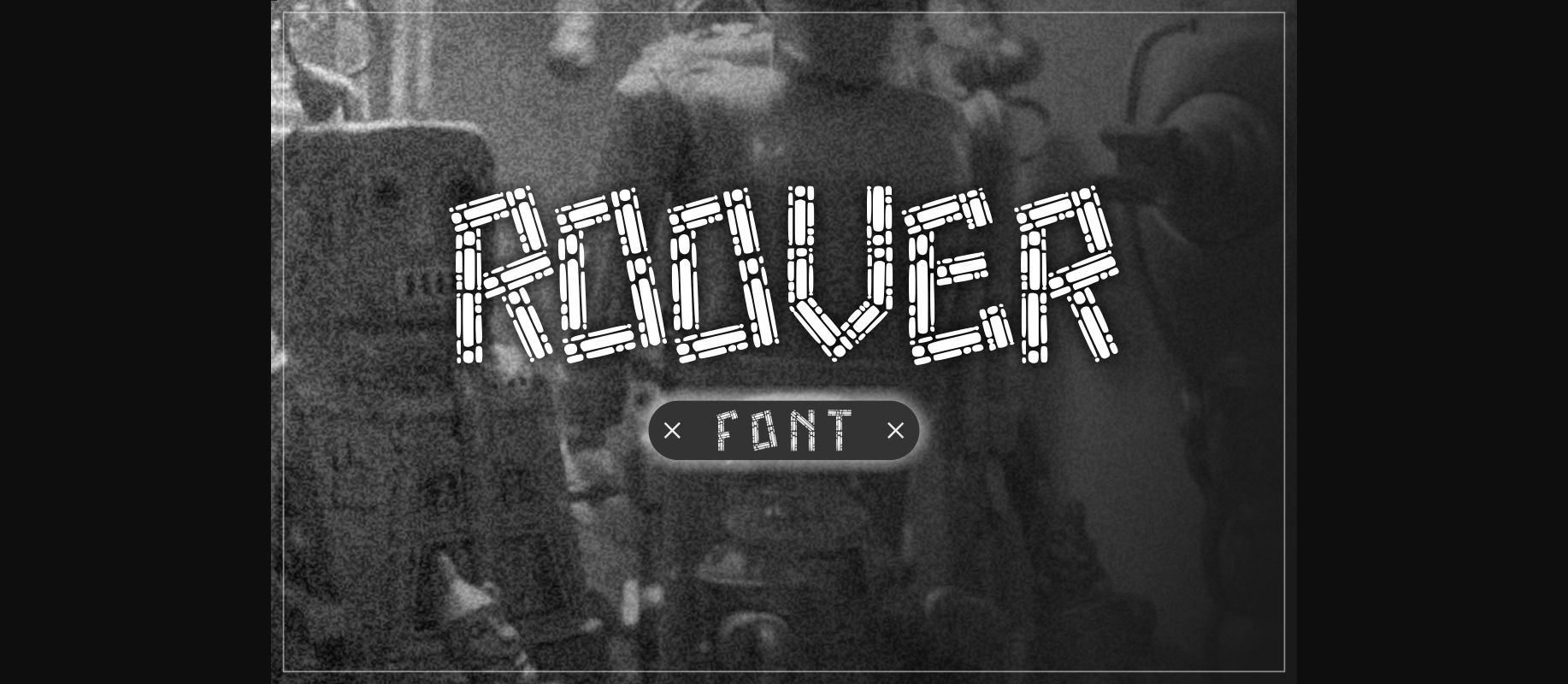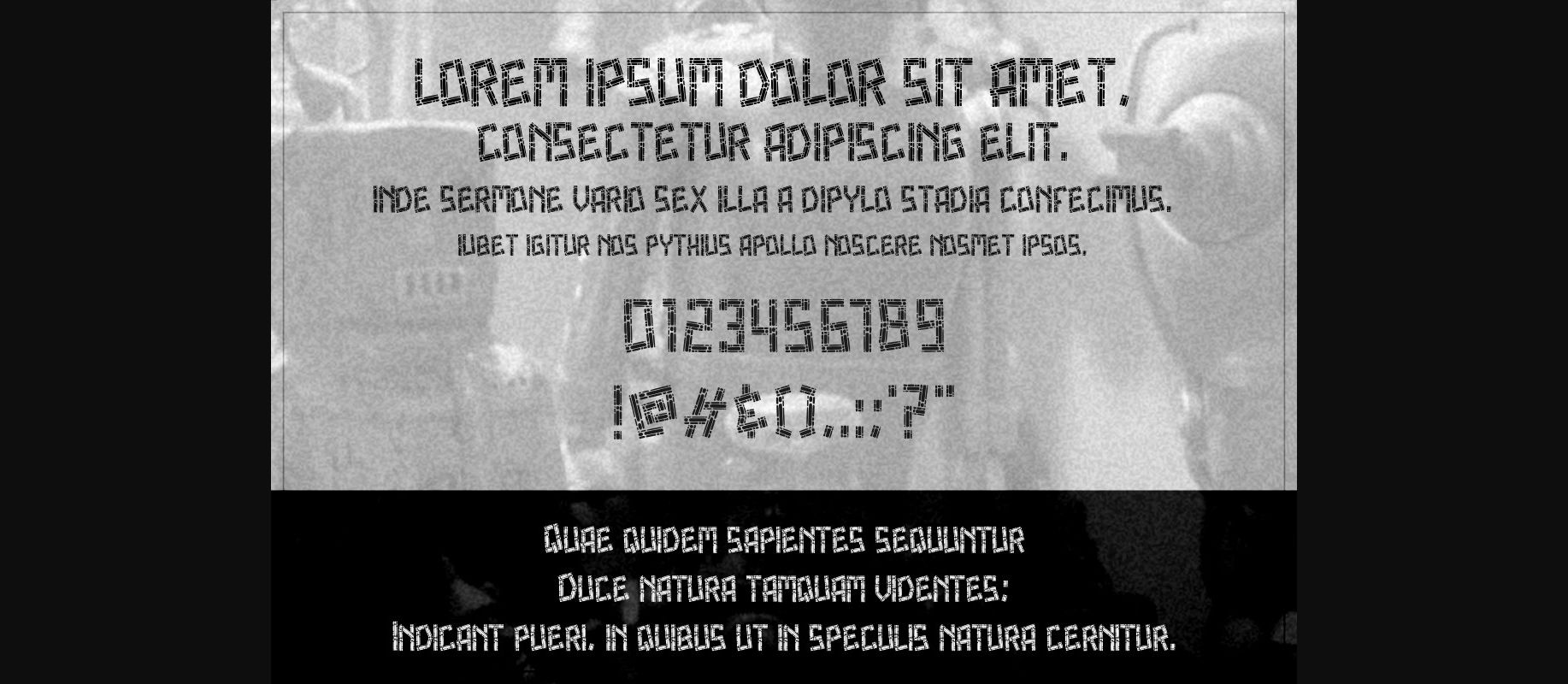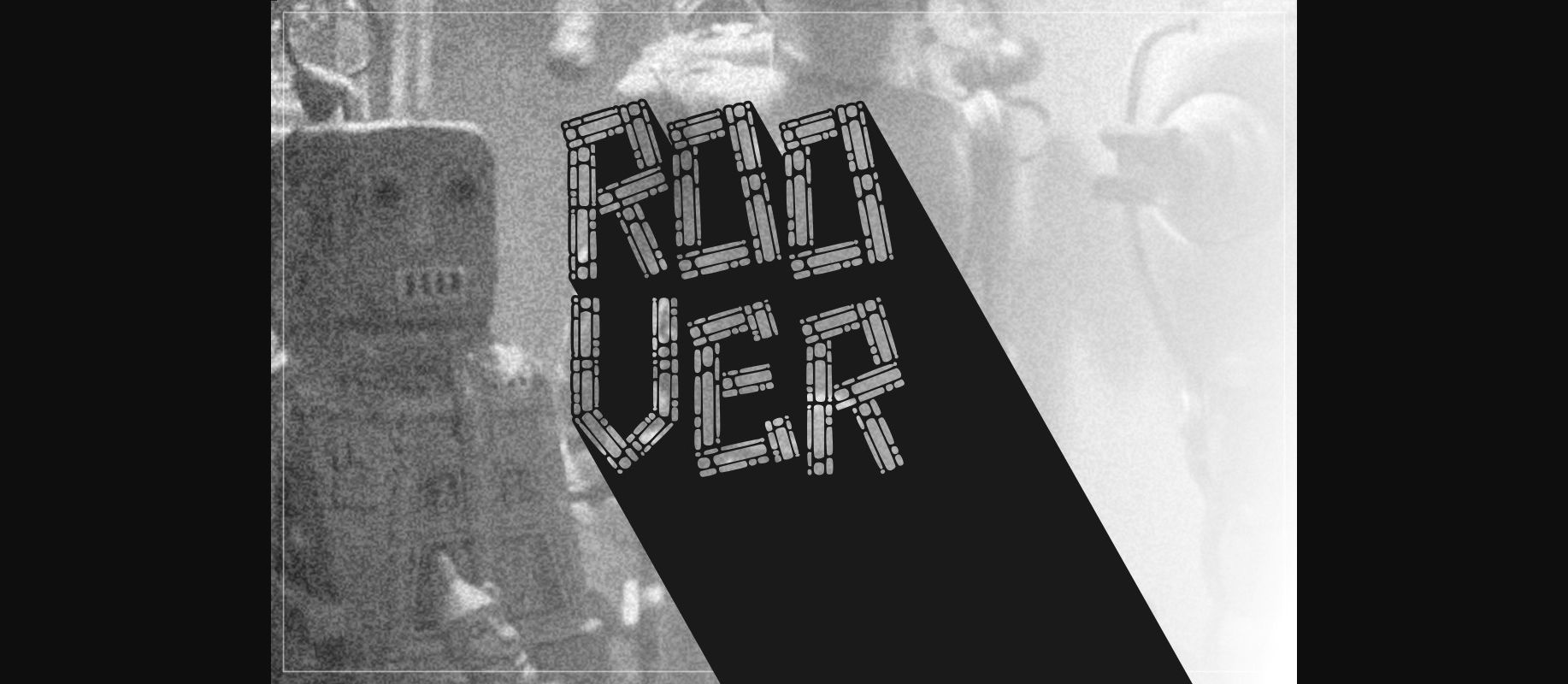
Roover Font
About Roover Font
Roover is an incredibly cool and interesting looking decorative font. It is a great choice for tech campus event flyers, sci-fi book titles or posters.